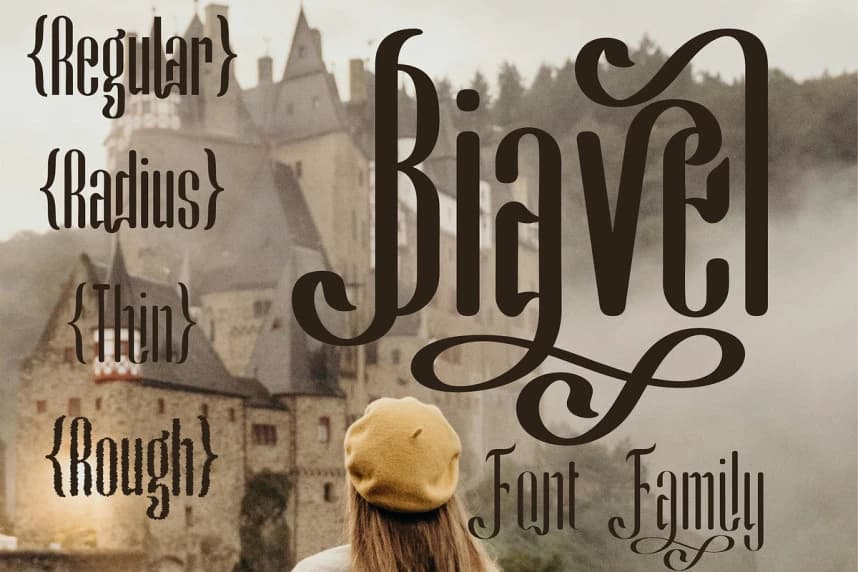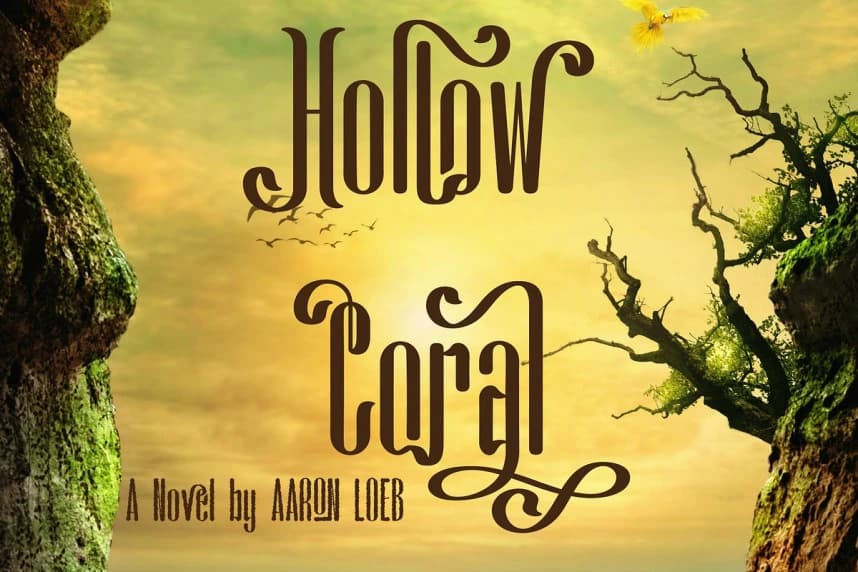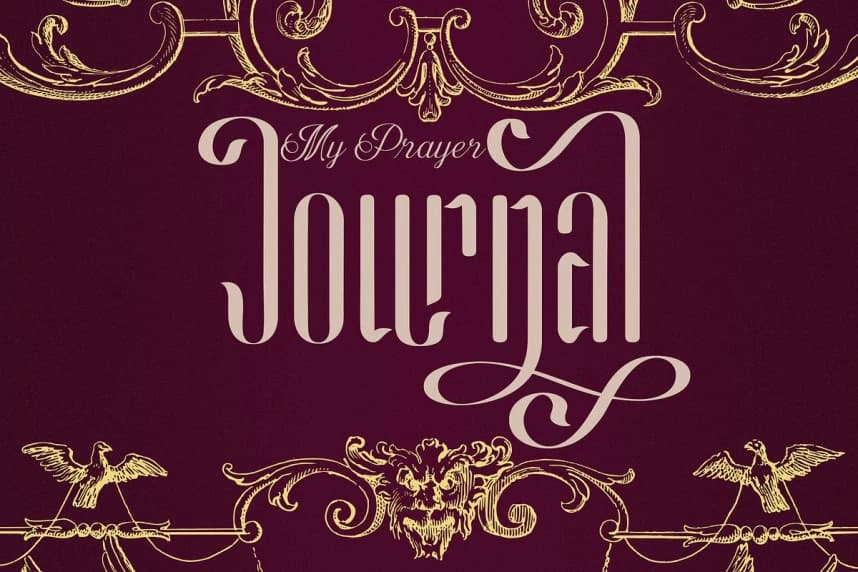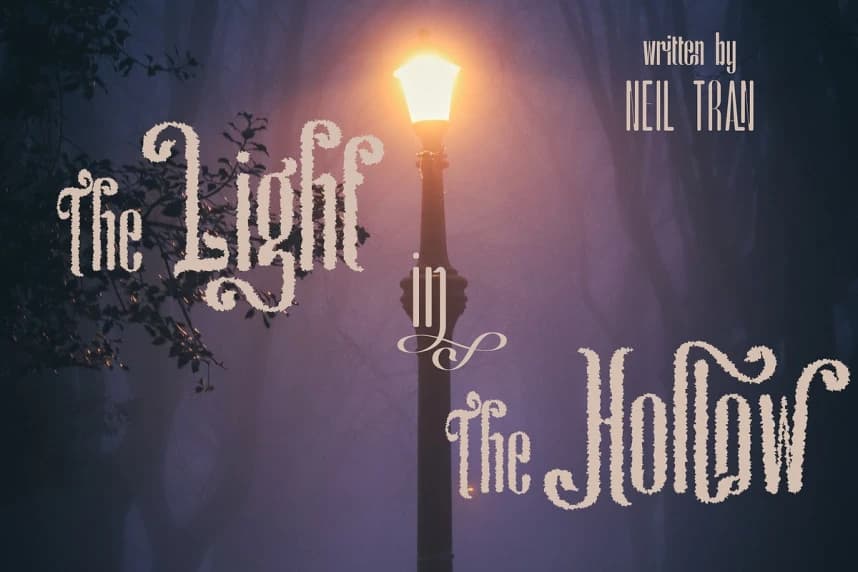
Biavel Font
Biavel Font is a decorative typeface inspired by classical lettering and traditional European craftsmanship. Featuring elegant curves, refined serifs, and expressive ornamental details, Biavel evokes a sense of timeless beauty, romance, and artistic depth.